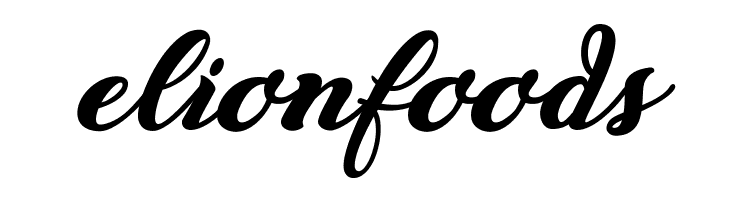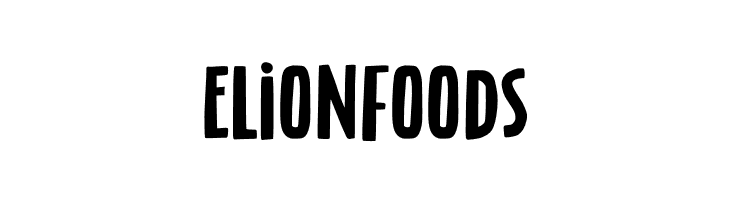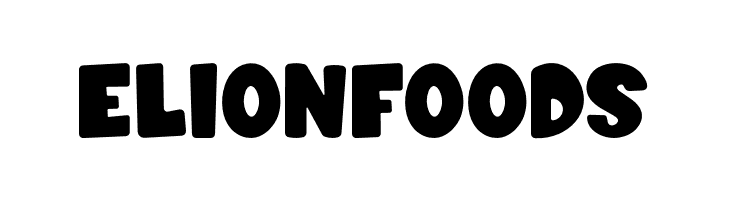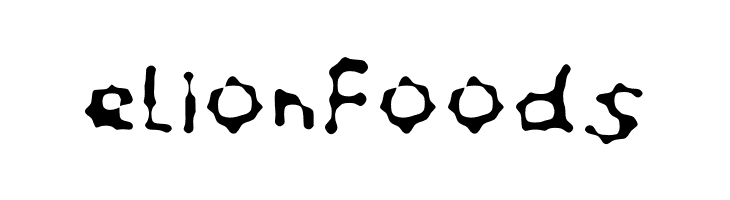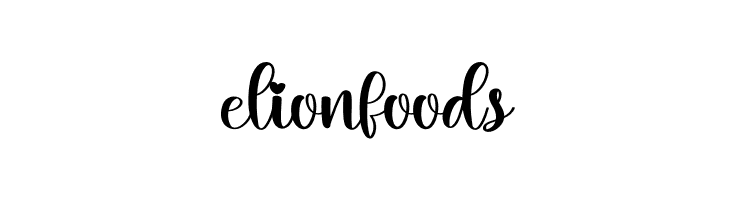
A playful and whimsical script font with flowing, cursive letterforms.
An elegant, decorative script font with intricate swirls and flourishes.
A playful, bold, hand-drawn font with a whimsical and informal style.
A playful, bold, hand-drawn font with a whimsical style.
A playful, bold font with rounded, irregular shapes for a whimsical feel.
A playful, blob-like font with an organic, hand-drawn appearance.
A playful, hand-drawn style font with rounded, bold letterforms.
A playful, cursive script font with elegant loops and decorative flourishes.
A dynamic and fluid script font with elegant, flowing letterforms.
A playful, dinosaur-themed font with bold, cartoonish characters.